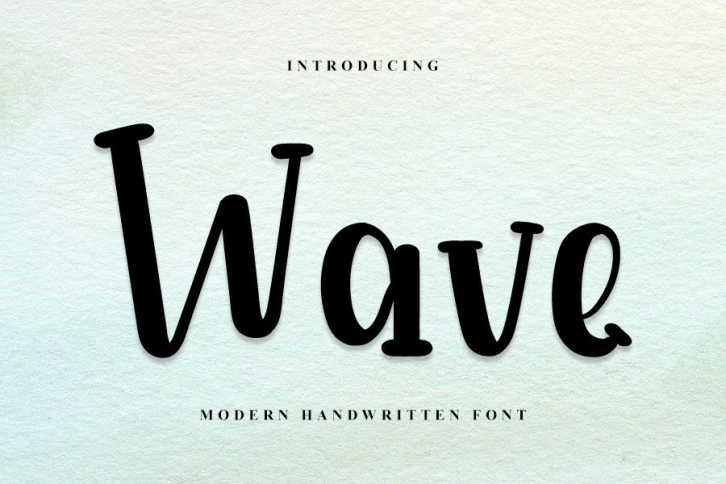
Wave is a neat and beautiful handwritten font described by an elegant touch, perfect for your favorite projects. Fall in love with its incredibly distinct and timeless style, and use it to create spectacular designs!